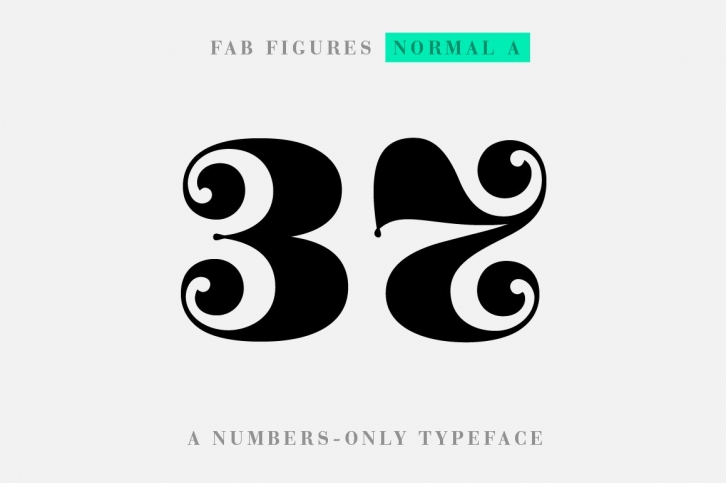
Fab Figures Normal A is a numbers-only font. It is a high contrast font with curly terminals.
Character Set: 1 2 3 4 5 6 7 8 9 0 | % # • ~ { $ £ € } . , : ; + - = ÷ / ° * ' ’ (Arrows) (No-Symbol) (Nr-Symbol)